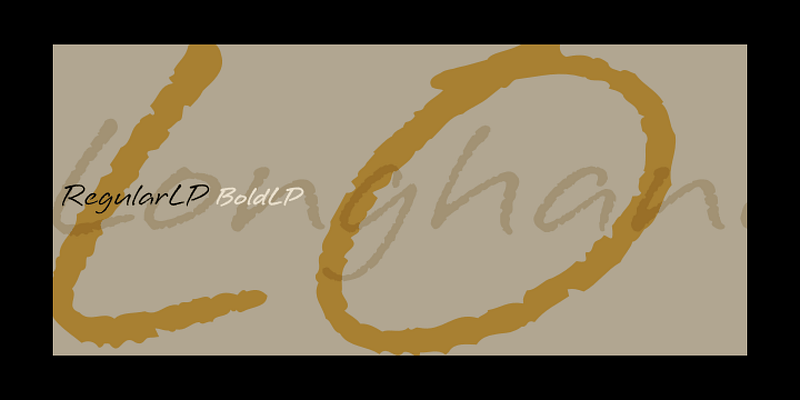
LetterPerfect Fonts
LetterPerfect is a boutique type foundry offering a diverse range of designs, from historically-derived styles to lively contemporary scripts. Since 1986 it has been a source of distinctive font solutions for both print and e-media. Many LP designs — Spring, Wendy, Florens, Longhand — are recognizable from their broad usage in advertising.